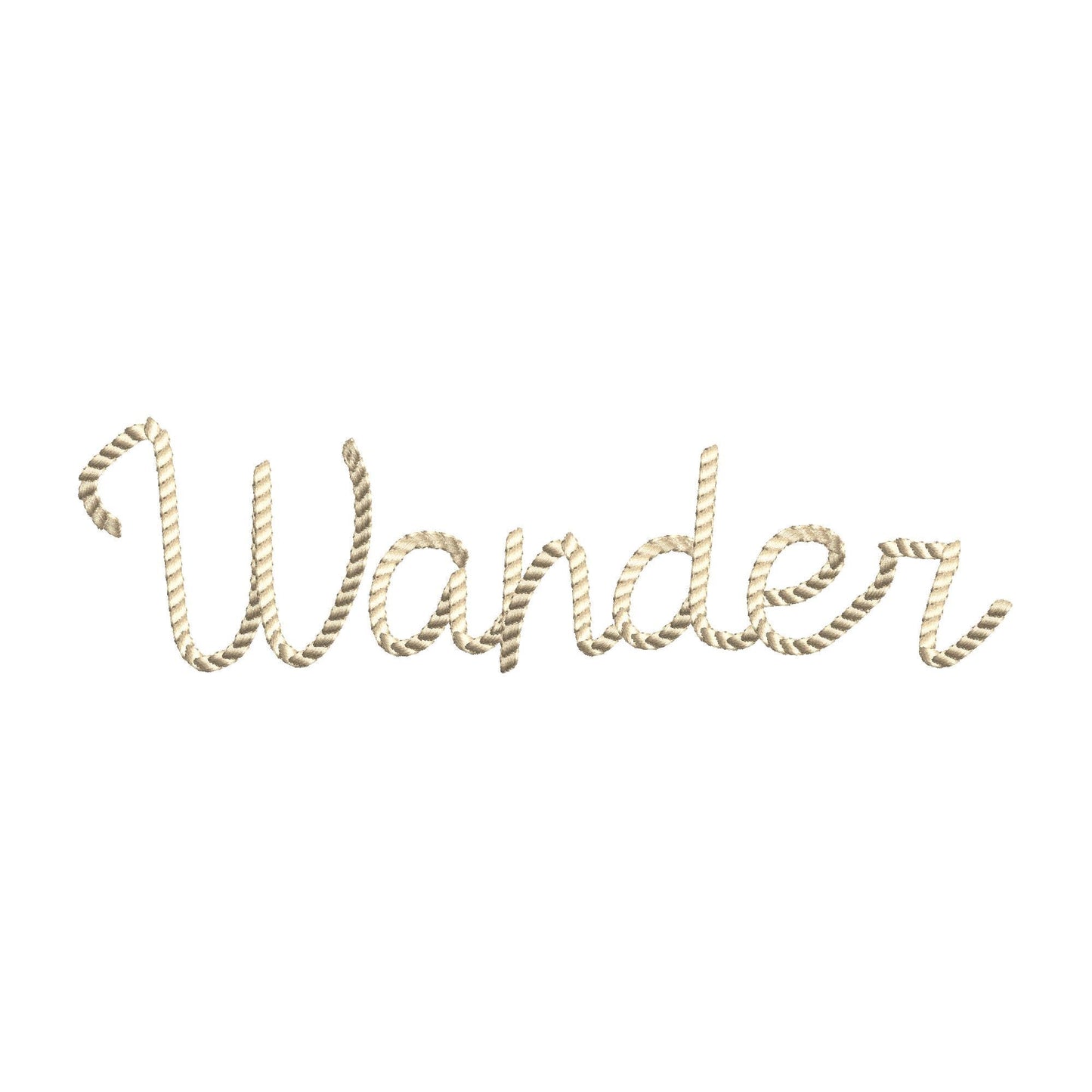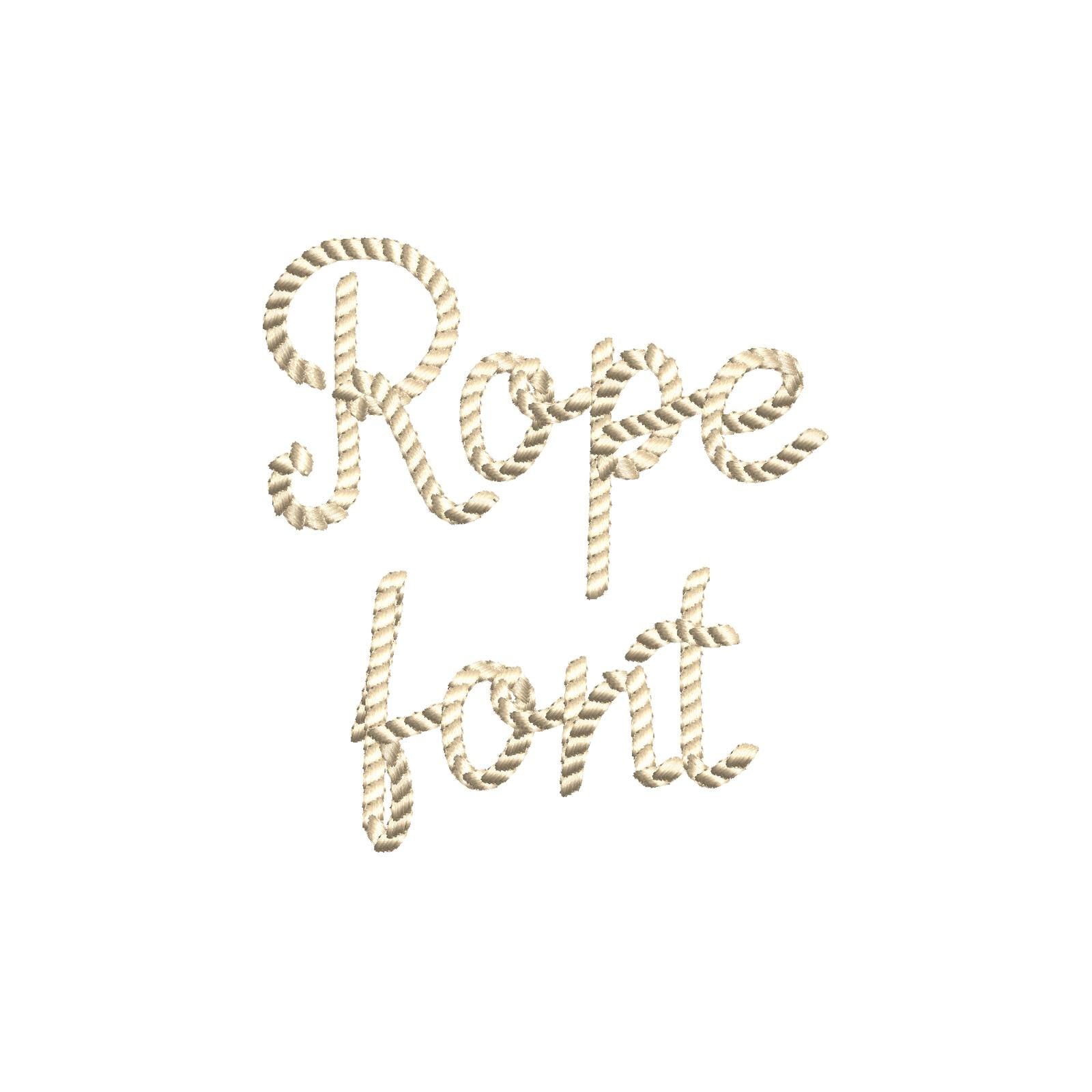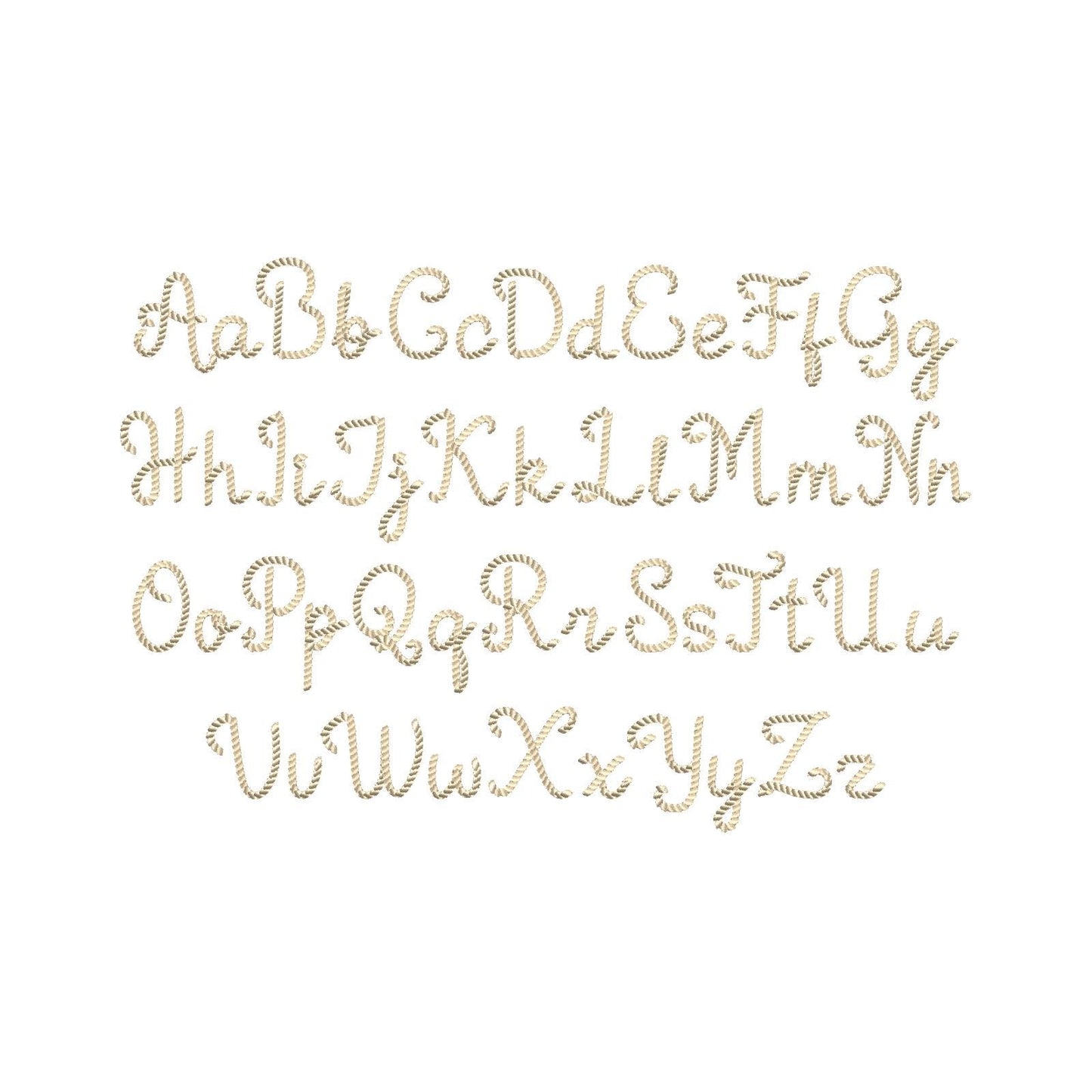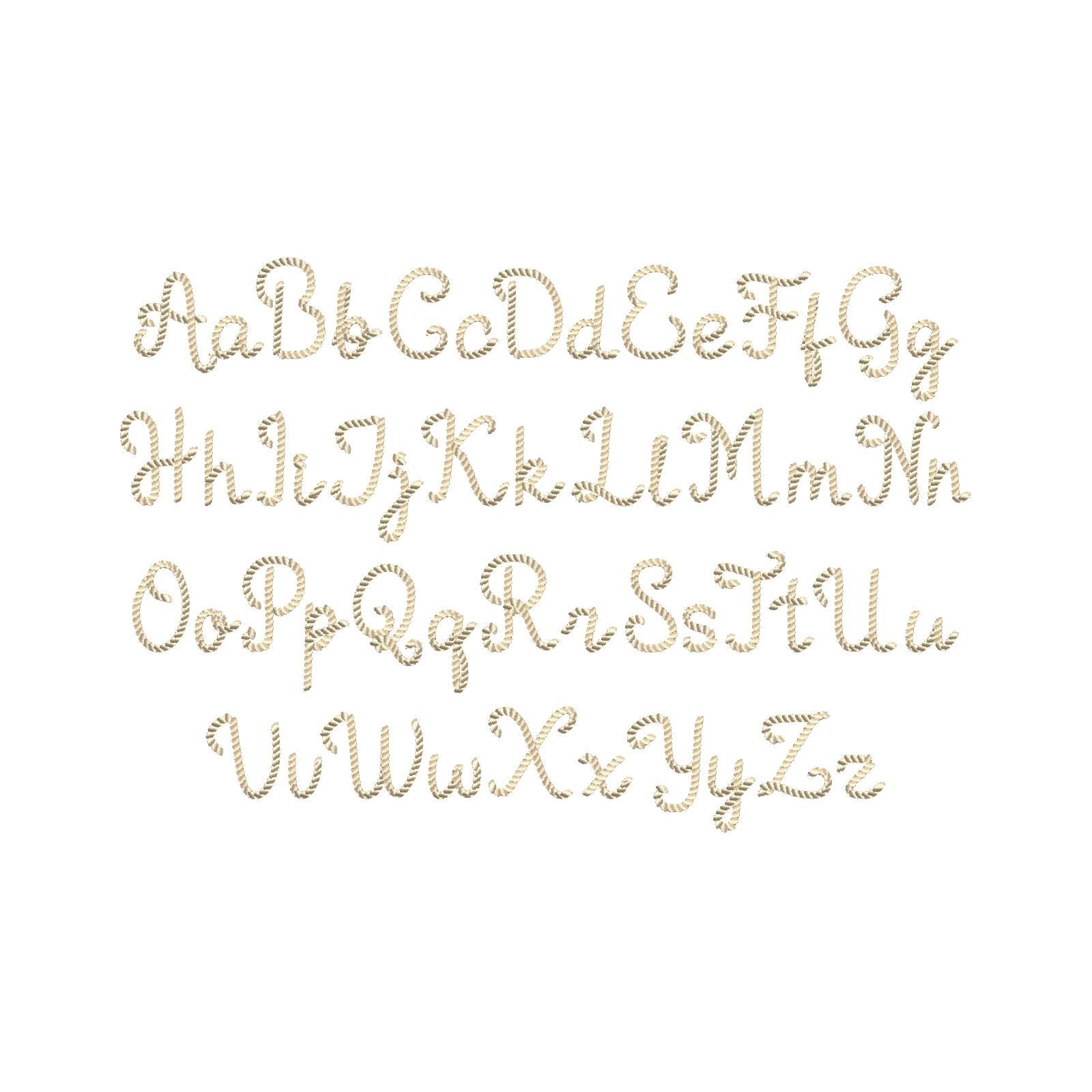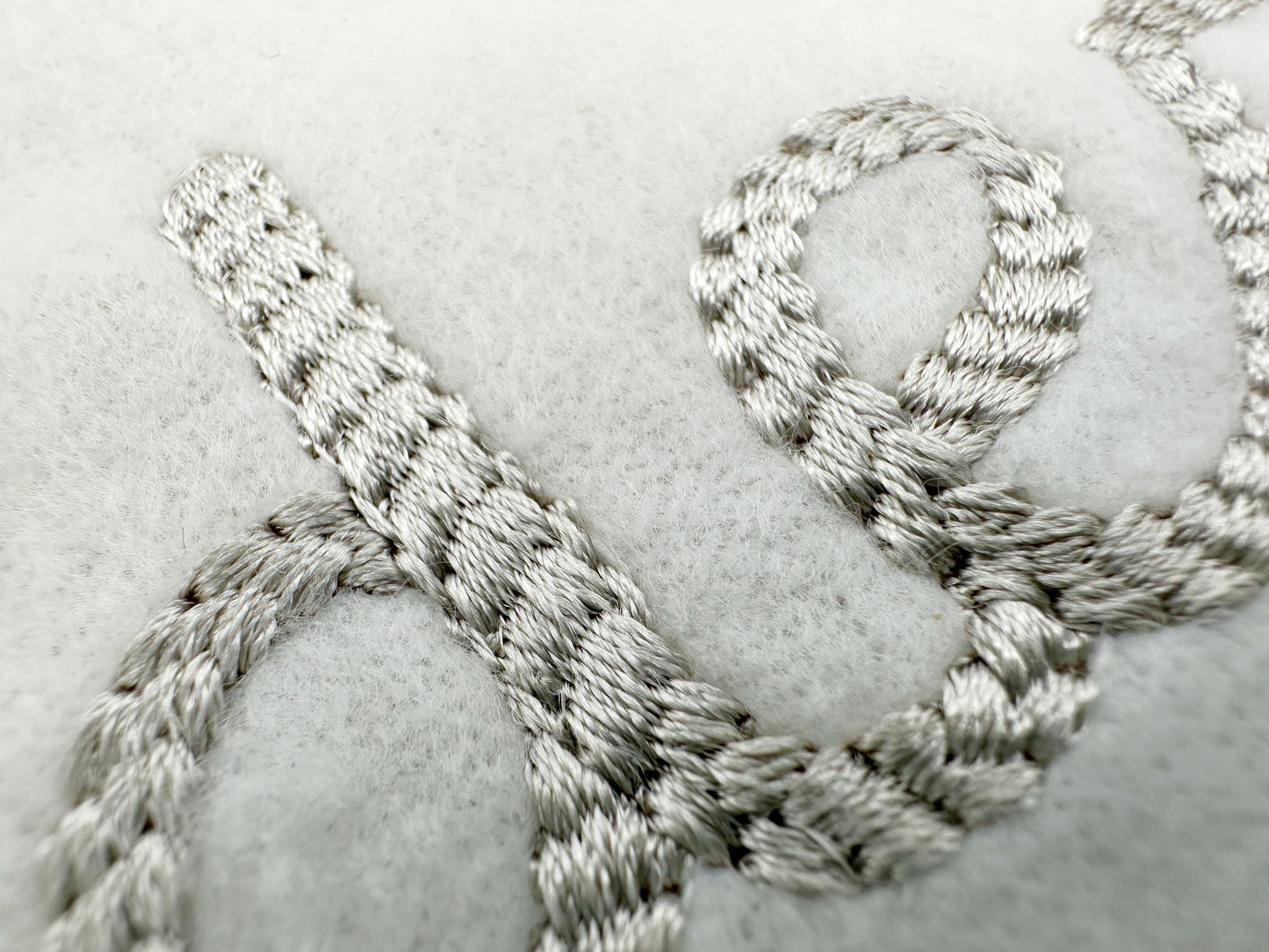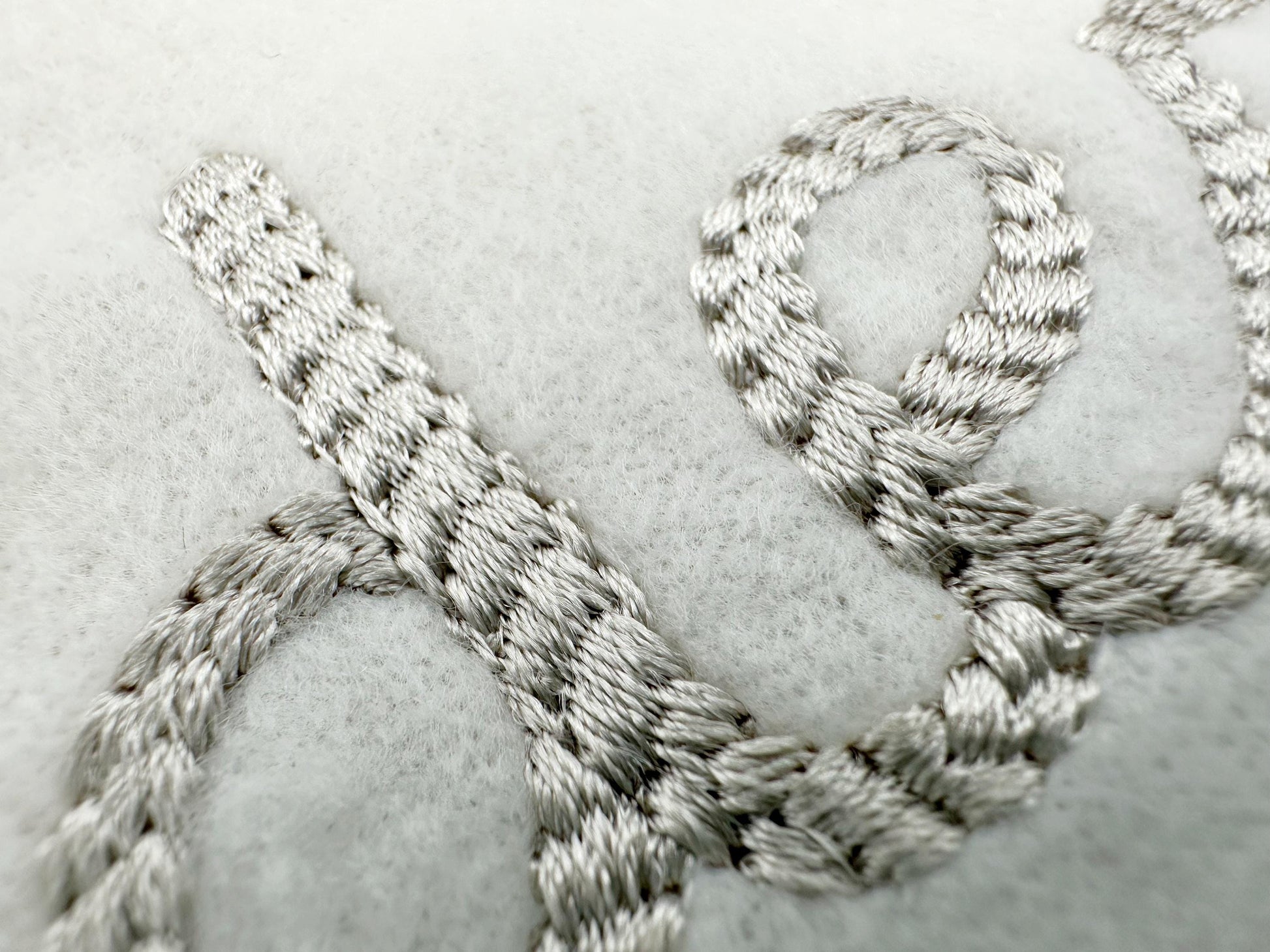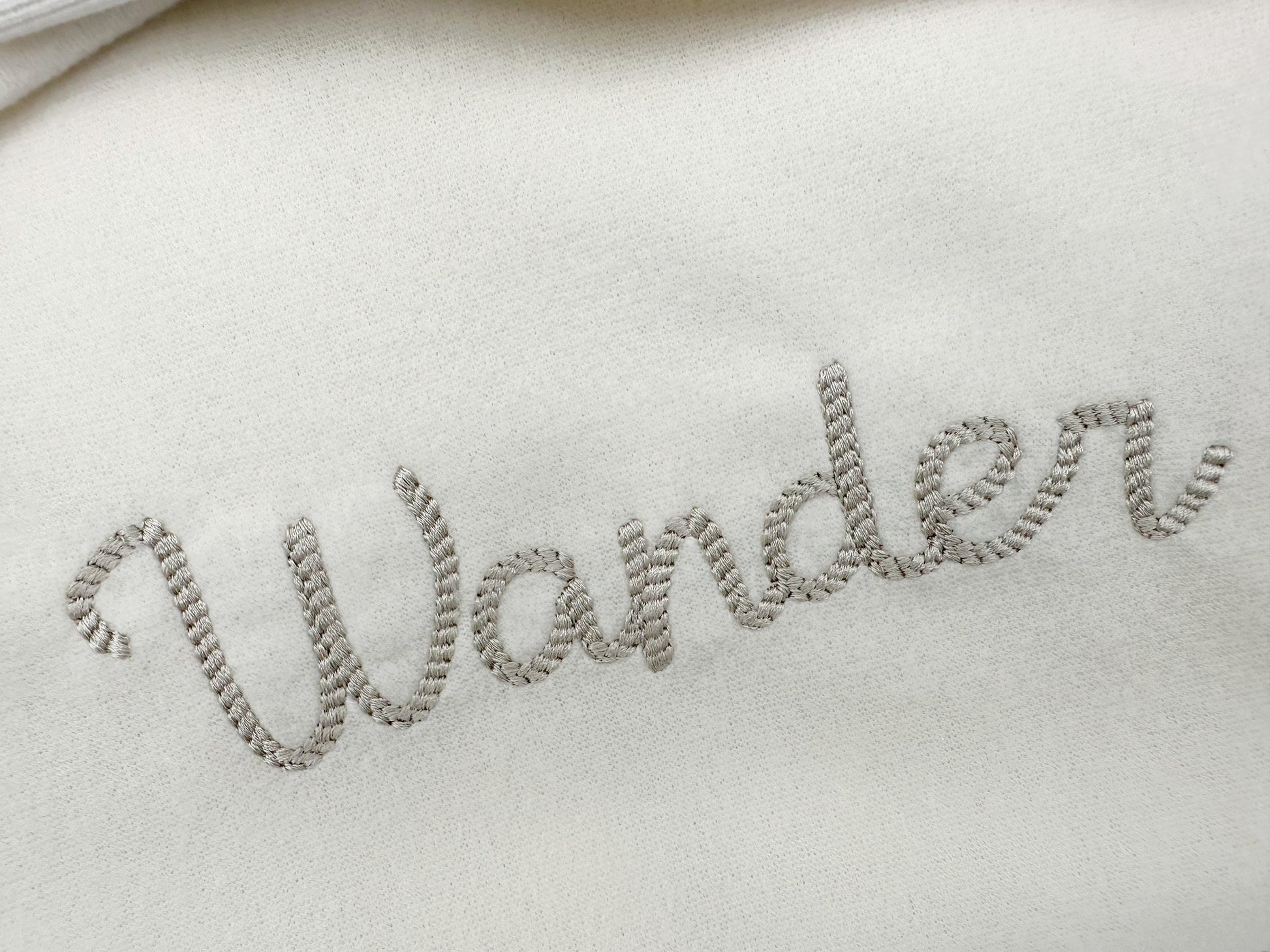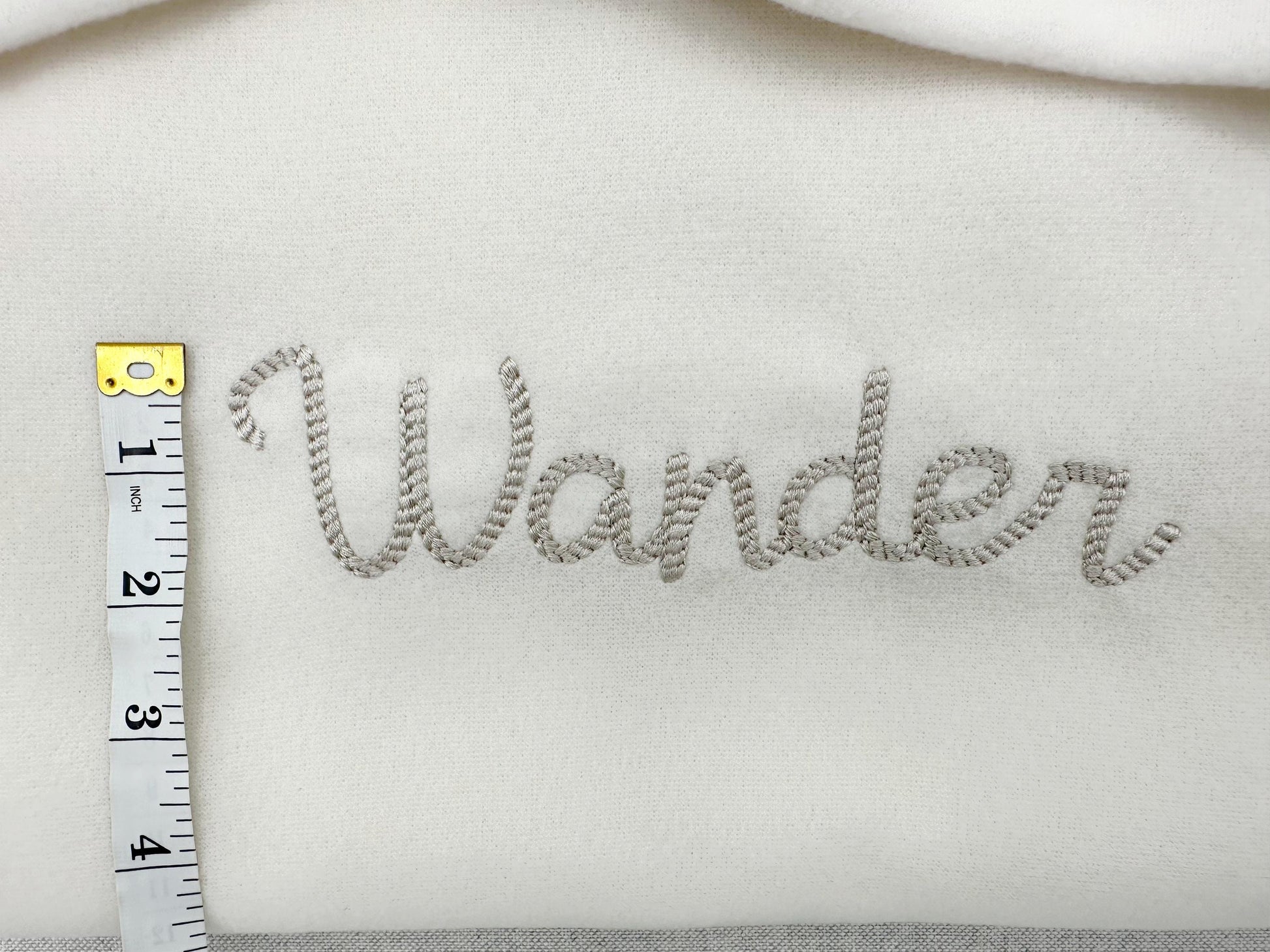
Rope Stitch Font Ropetastic
The letters come in six sizes: 1.3, 1.5, 1.8, 2.2, 2.6 and 3.2 inches. A twisted rope stitch forms each handwritten letter. Includes uppercase and lowercase letters A to Z.
- Nautical rope stitch script font
- Uppercase and lowercase letters A to Z
- 6 sizes, 1.3 to 3.2 in